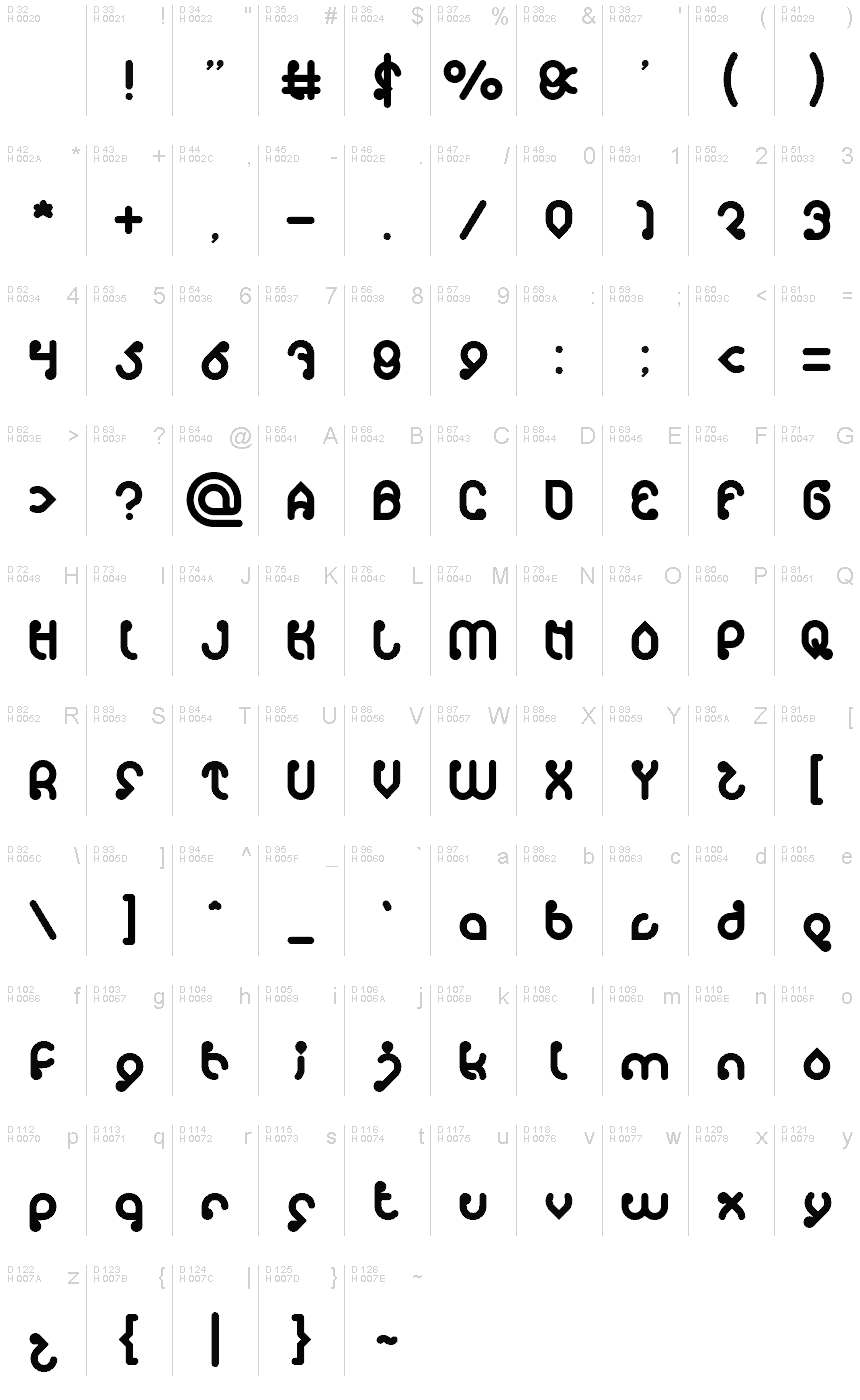
monica-Light
Monica Light is a striking display font that exudes a groovy, retro-inspired aesthetic. Designed by Weknow, this typeface boasts unique curved letterforms and an overall playful, slightly whimsical vibe.
The distinctive shape of the "m" and the seamless flow between characters create a sense of fluidity and movement. This font would thrive in various design contexts, from retro-themed branding and editorial layouts to bold event posters and packaging designs, lending an engaging, attention-grabbing presence.